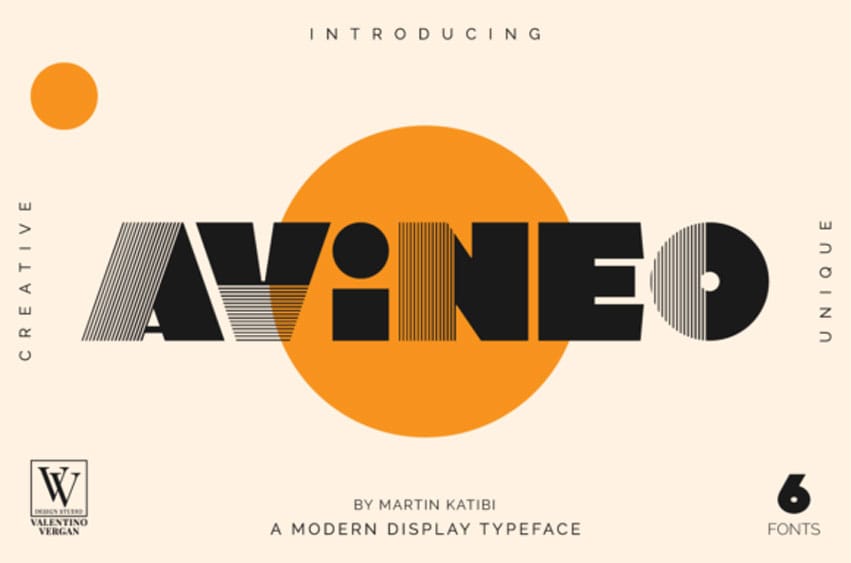
Avineo Font is a cool and modern-looking display font.
It is suitable for logotype, headline font, in corporate identity, brand identity, apparel industry, posters, music, movies, games, magazines, books, comics, cartoons, YouTube, Instagram, websites, or any of your creative design projects.